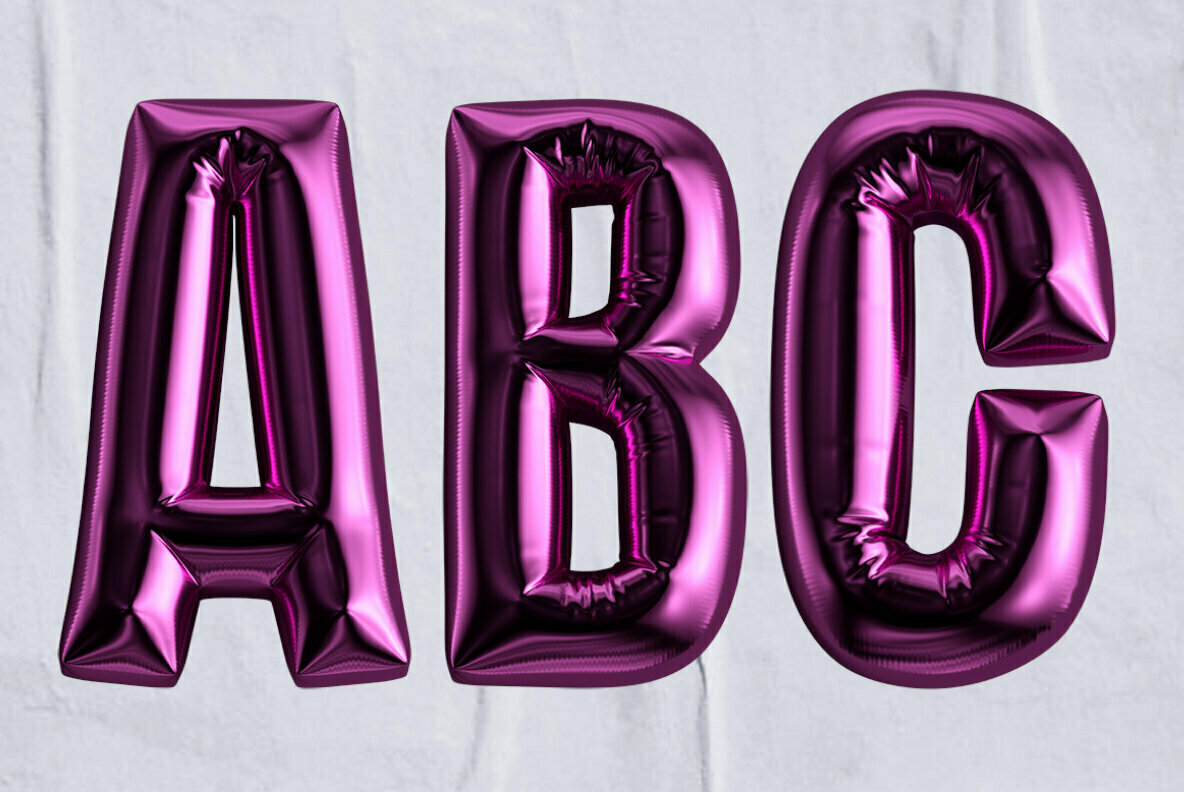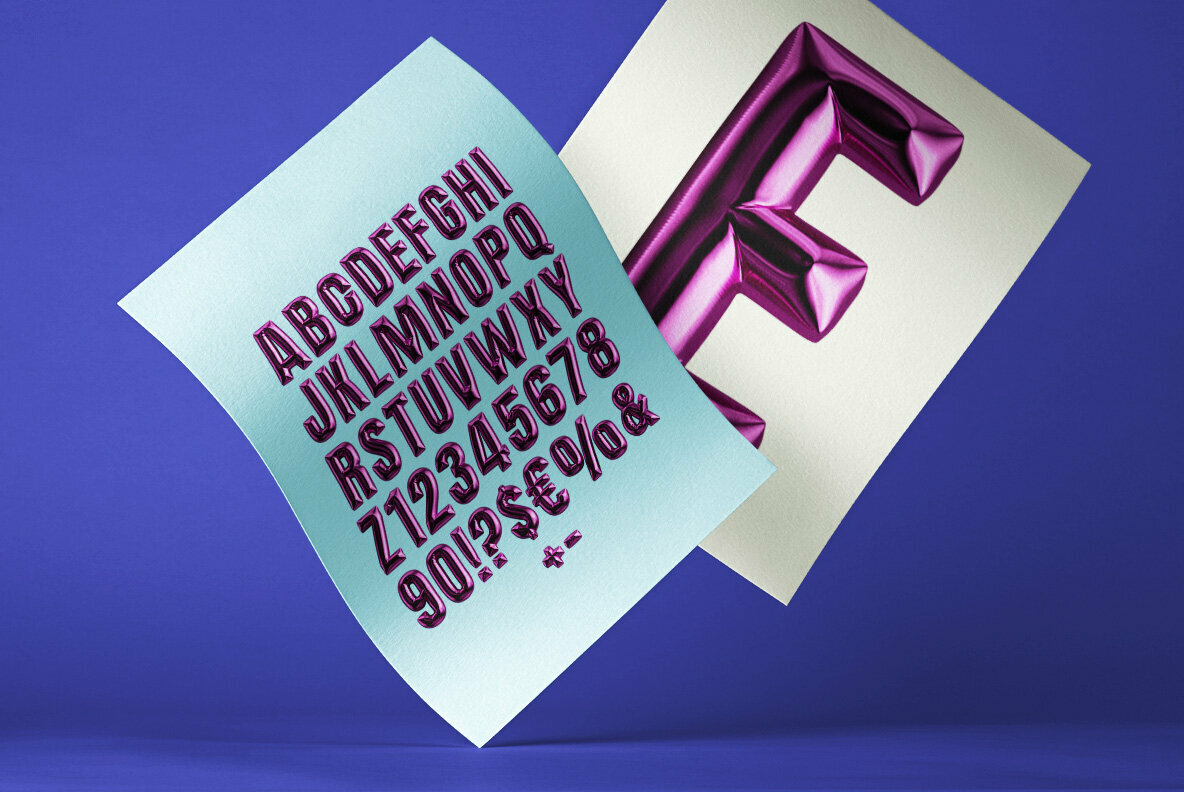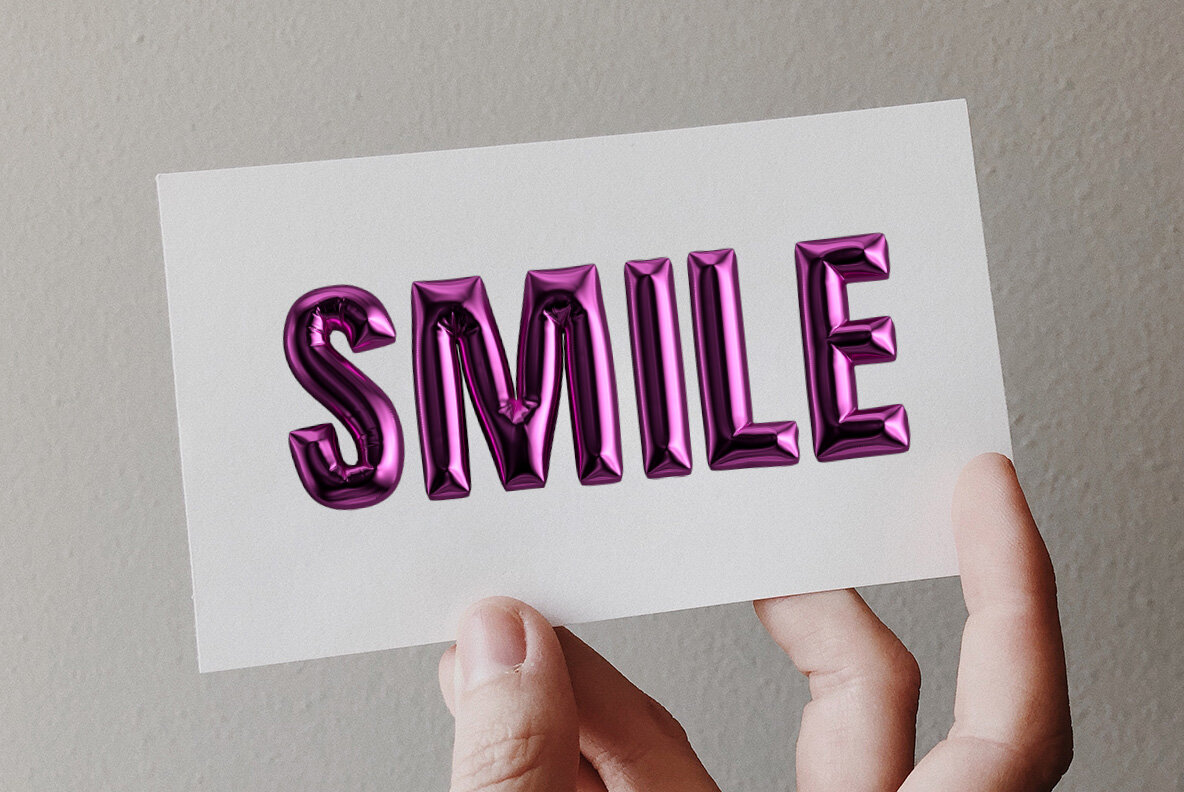
Happy Birthday SVG Font is the product of a strong alliance between balloon typography and holiday typography. It combines a light-hearted nature of a balloon font with striking and colorful charm of a bright alphabet. The violet letters of Happy Birthday Font are really vivid and remind of these glowing balloons that we often use for a room decoration. Do you remember the thrill of the moment when you are waiting for your friend who doesn’t even know about your surprise party? With this unique typeface you will recall it immediately.
What must you do with Happy Birthday Font? The answer is obvious: you must celebrate! The best way to use the potential of the balloon font is to decorate your birthday cards with it. Such a creative typeface will build a positive and funny image of the card thus guaranteeing a good mood of a person that celebrates his or her name day. Beside birthdays, there are many other special occasions that allow you to use this holiday typeface like, for example, wedding designs.
Happy Birthday SVG Font. A high definition OpenType-SVG font with built-in 3D.